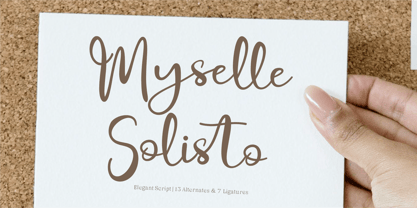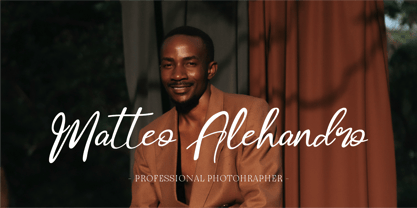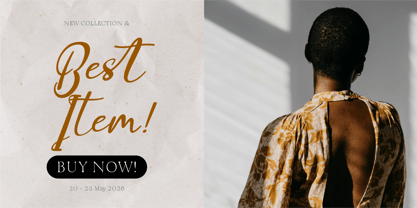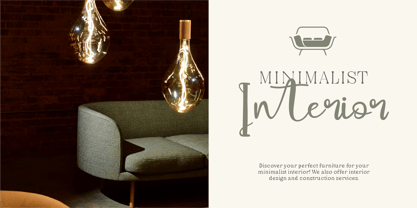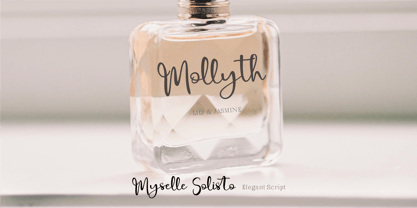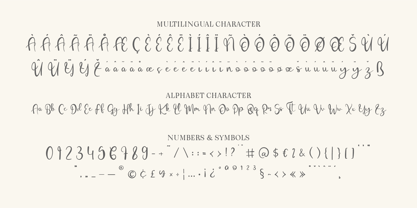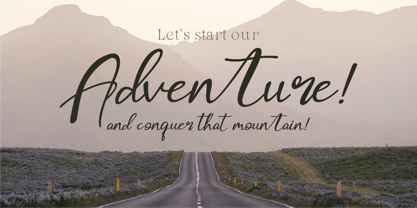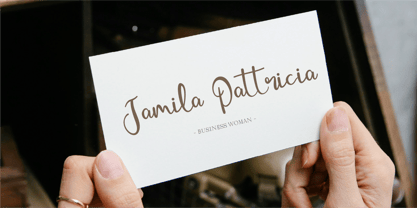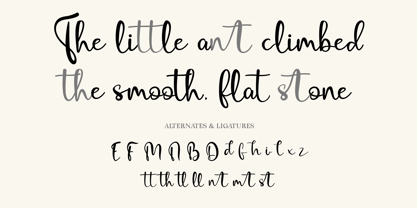
CF Myselle Solisto
The CF Myselle Solisto Font Family was designed by Gilang Mei Nugraha, Frederik Aristaputra and published by Indotype. CF Myselle Solisto contains 2 styles and family package options.
Myselle Solisto is a sophisticated and graceful script font designed to bring elegance and charm to any project. With its flowing, handcrafted strokes and delicate curves, this typeface embodies a perfect balance of modern style and classic calligraphy. Featuring 13 alternates and 7 ligatures, Myselle Solisto offers a customizable and natural handwritten feel, making it ideal for a variety of creative applications.
Whether you're designing wedding invitations, luxury branding, stylish packaging, fashion editorials, or social media graphics, this font adds a refined and polished look to your work. The smooth connections and artistic letterforms make it perfect for signature-style logos, personal stationery, greeting cards, and high-end marketing materials. Myselle Solisto enhances any design with its timeless beauty, making it a must-have for designers seeking a touch of sophistication and uniqueness.
- Standard Character A-Z, a-z, 0-9, Punctuation & symbols
- Regular and Italic